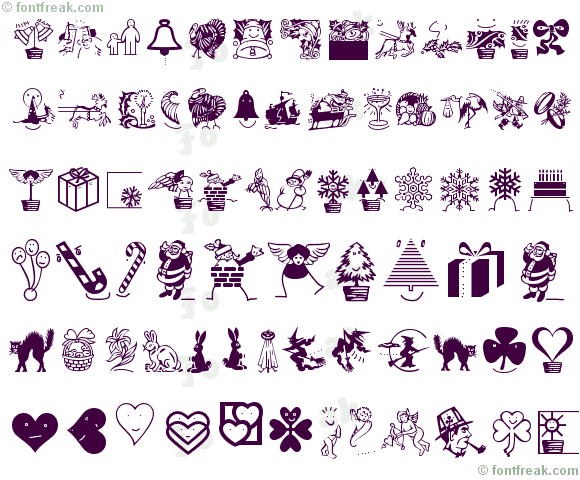
OldFriends
OldFriends — Character Map
About OldFriends
OldFriends is a unique display font designed by Manfred Klein that captures a charming, nostalgic essence. This font falls into the decorative category, characterized by its playful and whimsical design elements. The strokes exhibit a moderate weight, with an inviting contrast that enhances readability while maintaining a light-hearted feel. The character spacing is well-balanced, allowing for easy legibility in various applications, making it a versatile choice for creative projects.
The OldFriends font is particularly well-suited for a variety of use cases. It shines in wedding invitations, where its playful nature adds a touch of warmth and friendliness, making each invite feel personal and special. Additionally, it's ideal for children's book covers, where the fun, engaging style can attract young readers. Restaurant menus can also benefit from this font’s charm, as it adds a unique flair to the dining experience, enticing customers with its inviting appearance. For graphic designers, OldFriends serves as a delightful option for branding projects, allowing businesses to convey a sense of approachability and creativity. Content creators will find it useful for social media graphics, where an eye-catching font can enhance engagement and shareability.
Targeting graphic designers, small business owners, and content creators alike, OldFriends offers a refreshing alternative to standard typefaces. The font stands out due to its distinct character shapes and playful motifs, making it not just a typeface but a storytelling tool. With its availability for free download, the OldFriends font is an accessible choice for anyone looking to infuse their designs with a sense of joy and nostalgia. Whether you’re crafting a heartfelt invitation or an engaging poster, OldFriends is sure to leave a lasting impression.